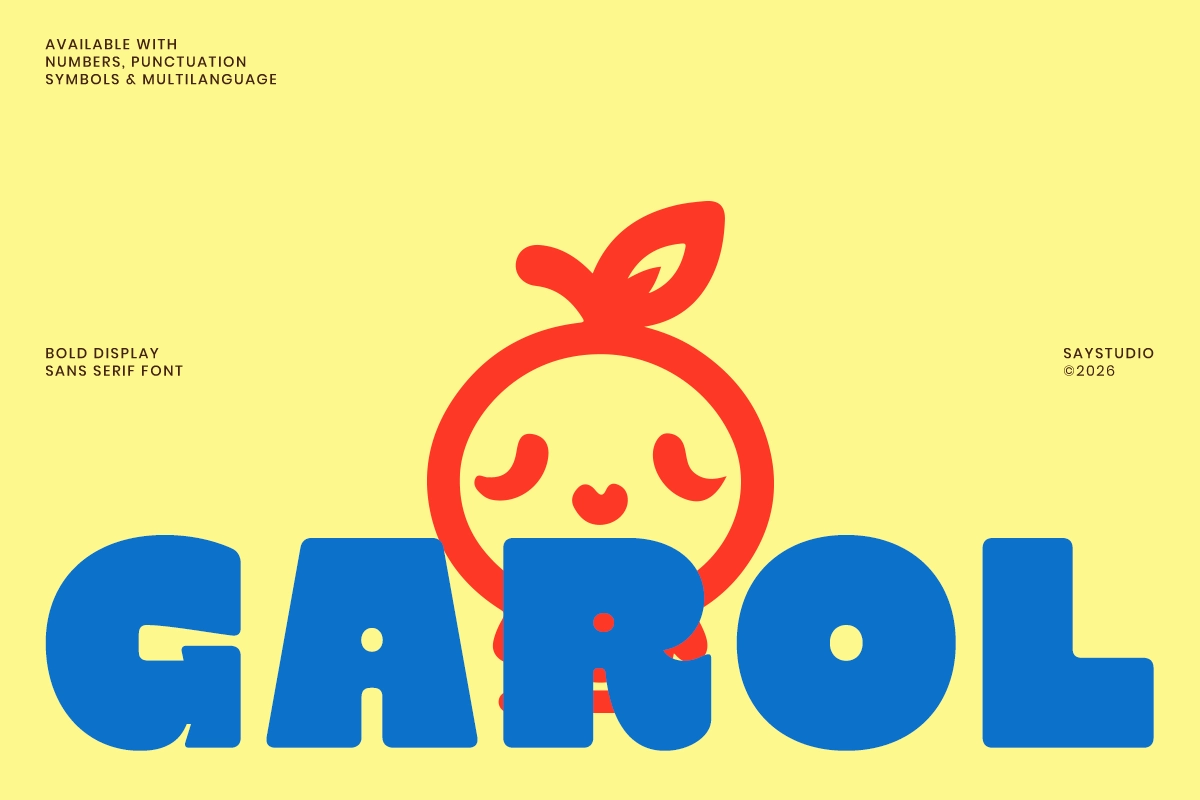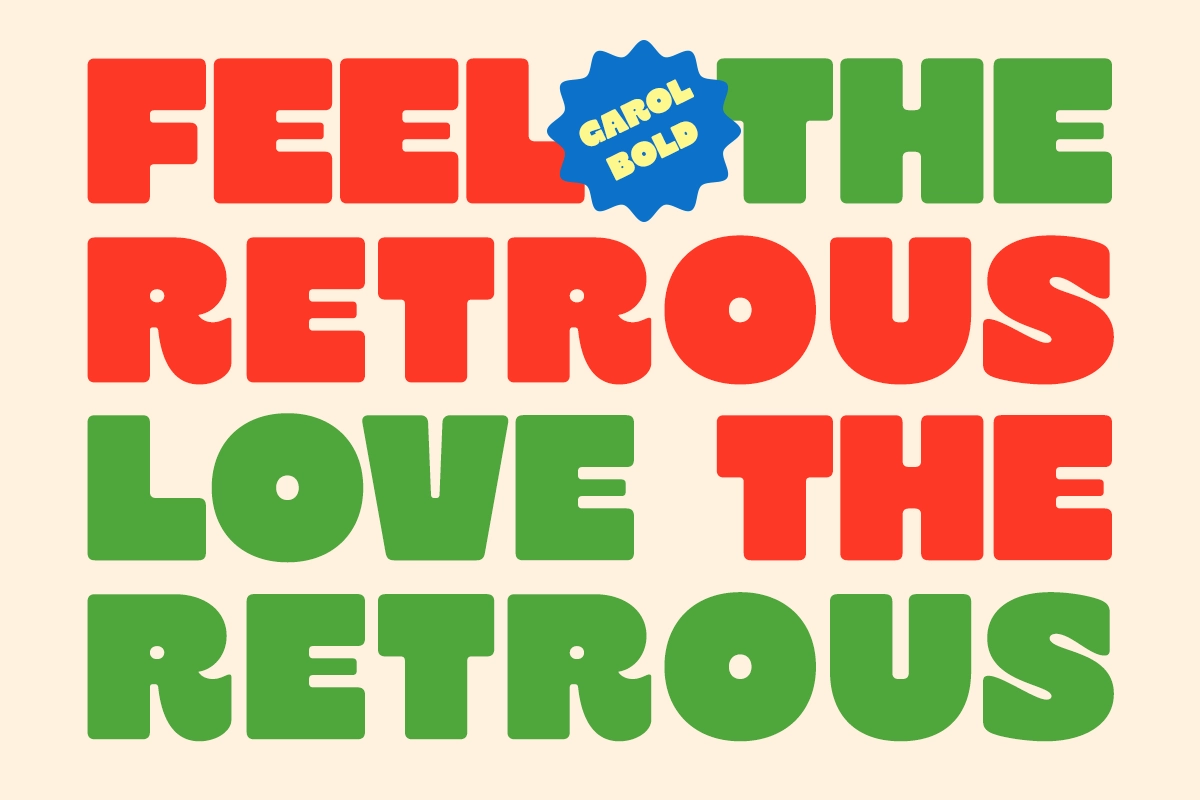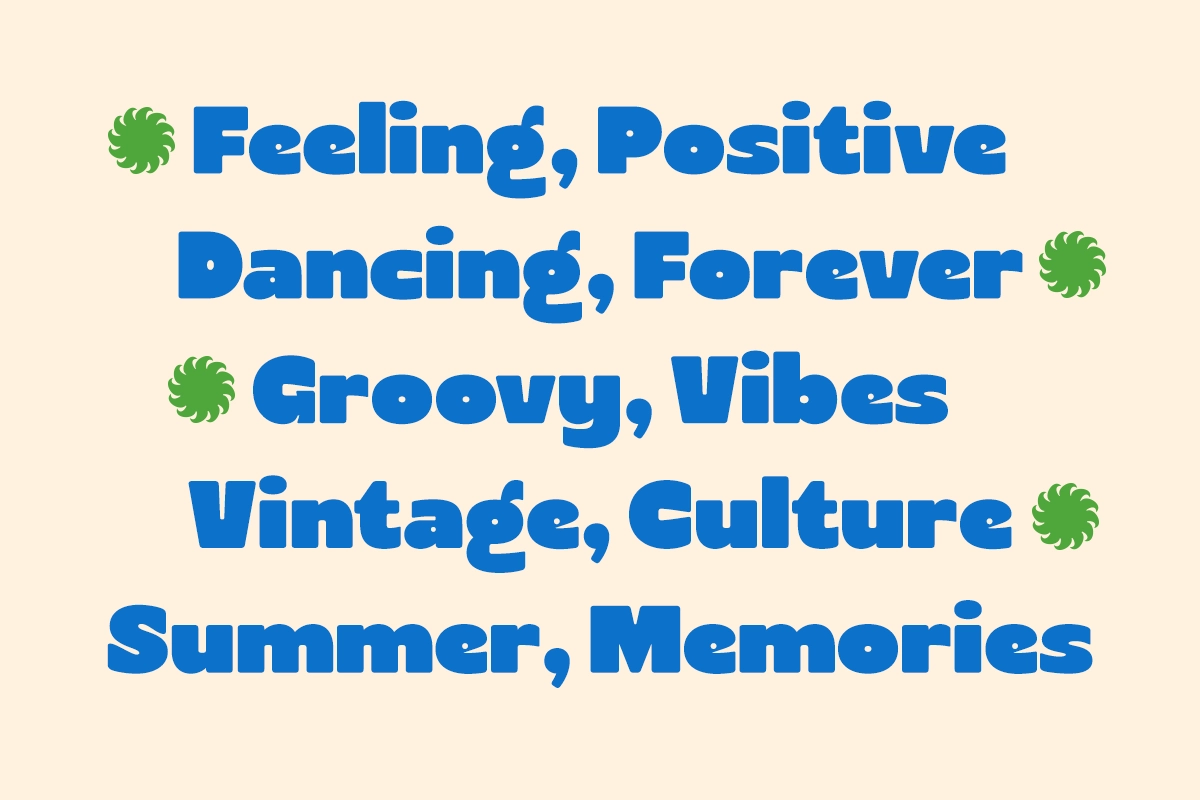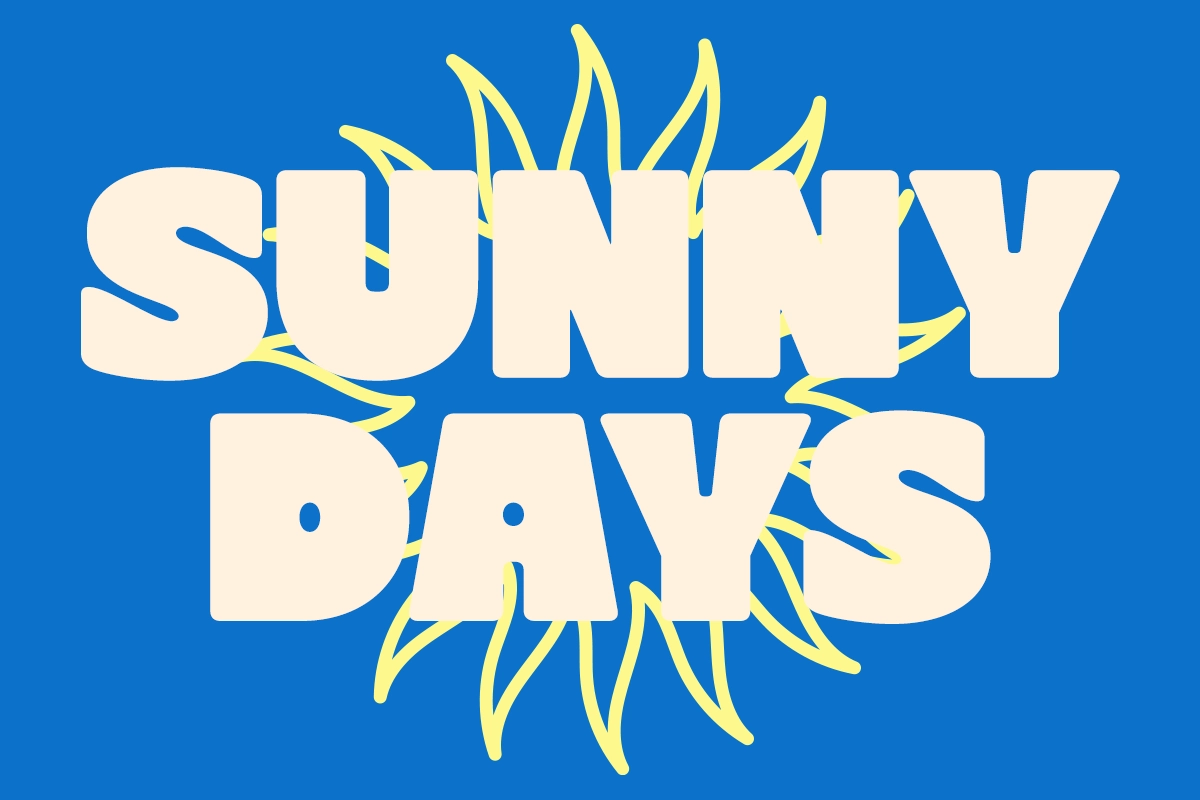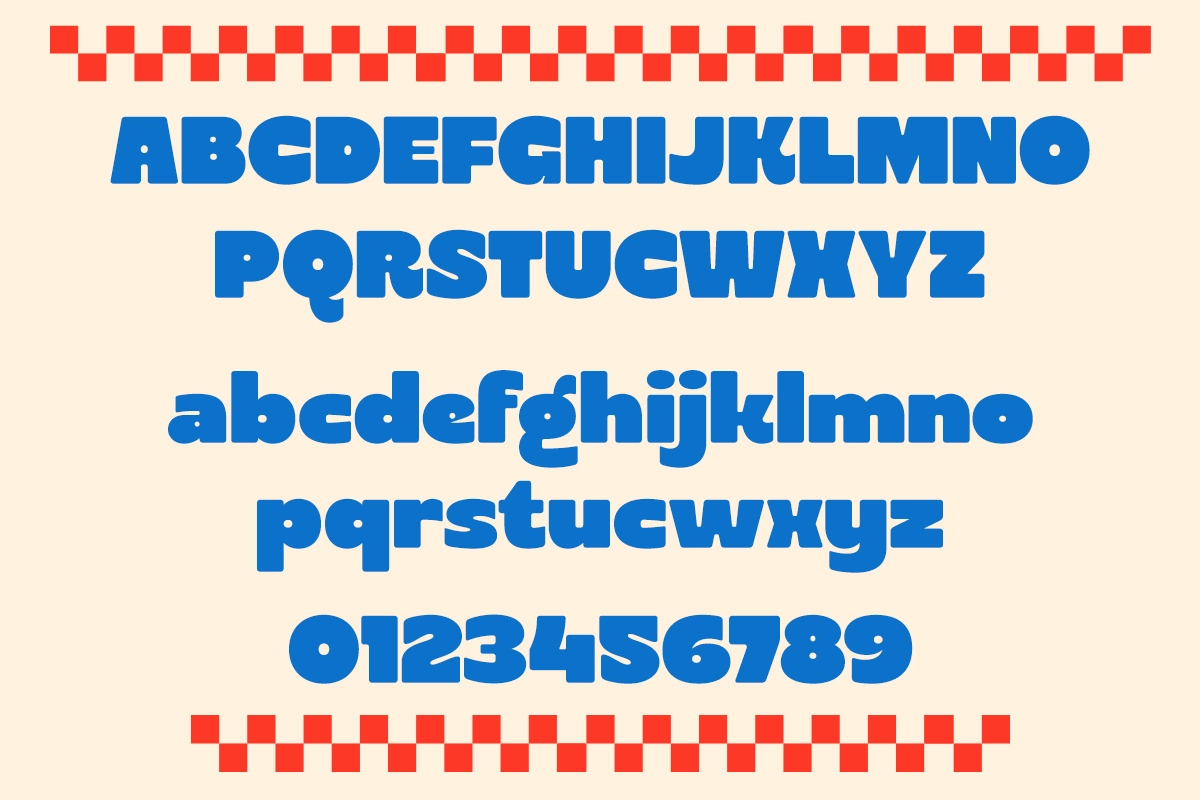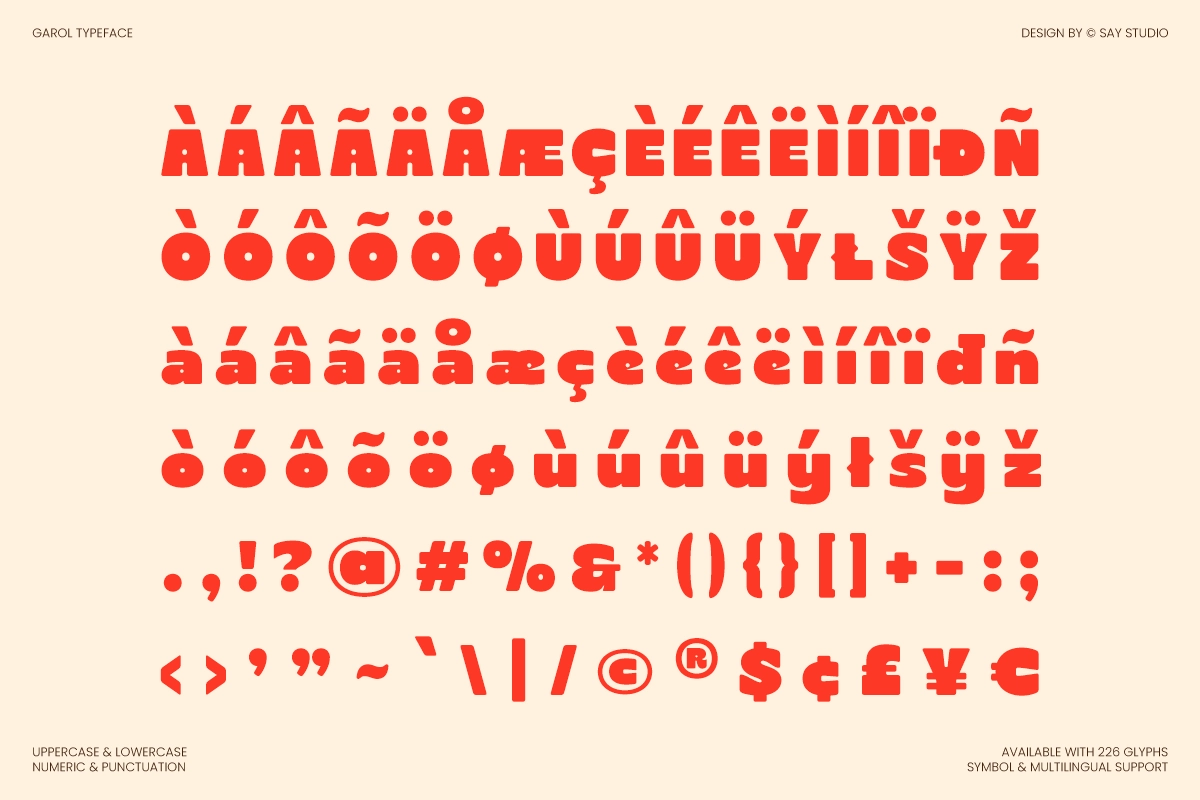
Garol — Playful Bold Retro Display Font
Garol is a playful bold display font that lands squarely in 1970s diner-sign and vintage carnival-poster territory — wide stroke mass, heavily rounded corners, and a near-zero contrast construction that gives every character the density of a painted block letter. The x-height is high and the counters are generous, so the font holds its presence whether it's running across a tote bag or stacked into a three-line headline. The Italic adds forward lean without thinning the strokes, useful for call-outs, labels, and anywhere the Regular needs a second voice.
Garol works across food branding, kids' packaging, festival posters, social announcement graphics, merchandise prints, and any identity that needs to read as bold and approachable at the same time. Use it for beverage labels, event headers, snack wrappers, campaign titles, and standout logotypes.